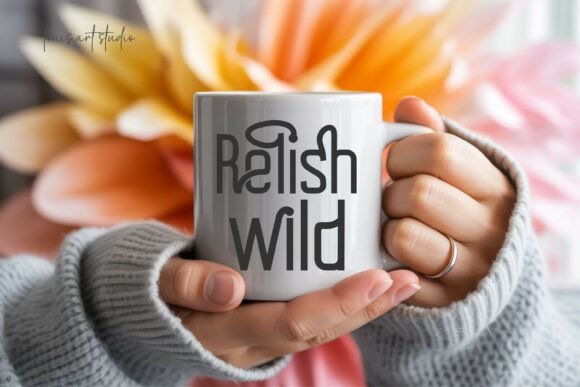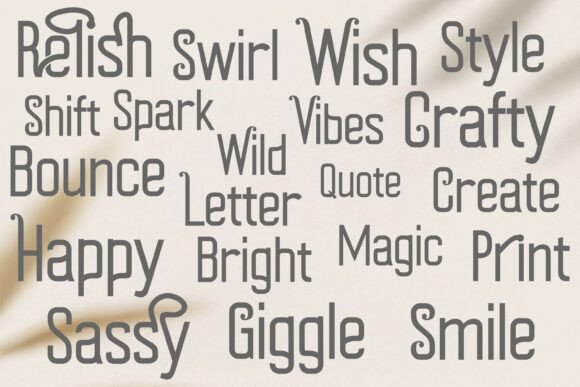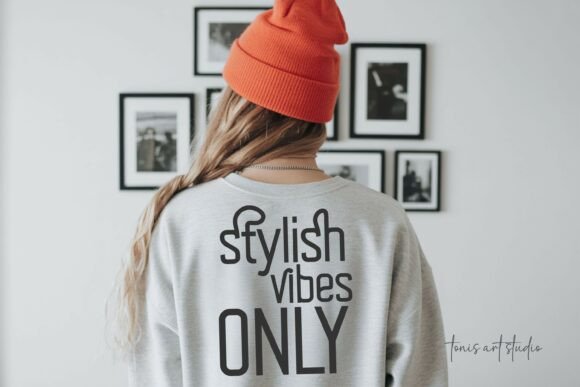
Introduction to Relish Font
Have you ever stumbled upon a font that makes your creative project come alive? For designers, finding the perfect font can be a game-changer. It’s that moment when you finally discover the missing piece that elevates your design from good to great. For us, that moment arrived when we discovered the Relish Font – a stunning, hand-drawn sans serif font that’s perfect for anything from quirky quotes to high-end brand identities.
With its amusing curves and swash substitutes, the Relish Font is a true design treasure. Whether you’re working on a high-quality design resource or a personal creative project, this font is sure to bring a touch of personality and charm to your work. And the best part? It’s available for free download, making it an accessible design resource for designers of all levels.
Key Features of Relish Font
- High-quality typography for creative projects: Relish Font is designed to provide a unique and elegant look to your designs.
- Transparent background: This feature makes it easy to use the font with any background image or color, giving you full control over your design.
- Perfect for digital designs: With a high resolution of 300 DPI, Relish Font is ideal for use in digital designs, such as website headers, social media graphics, and more.
- Unique characteristics: The font features a modern and sleek design, with subtle nuances that set it apart from other fonts in its class.
- Easy to use: Relish Font is designed to be easy to read and use, making it a great choice for any creative project.
Honest Review: Relish Font
As a designer, I’ve had the chance to work with a variety of fonts, but I wanted to share my thoughts on the Relish Font. I was initially drawn to its unique style and high quality, which I believe makes it a great addition to any design project.
The Relish Font features a transparent background, making it easy to customize and layer with other design elements. This is a huge plus for me, as I love experimenting with different design resources and techniques. Plus, the free download option makes it accessible to designers of all levels.
- Unique and stylish design
- High quality and crisp typography
- May not be suitable for very formal or traditional designs
- Limited language support
Overall, I’m really impressed with the Relish Font and think it would be a great addition to any creative project. It’s perfect for modern and edgy designs, and the free download option makes it a great resource for designers on a budget.
Tips for Getting the Most Out of Relish Font
For the best results, use Relish Font on a transparent background to ensure a clean and professional look. You can also experiment with different font sizes and styles to add visual interest to your design.
Relish Font is perfect for a variety of creative projects, including graphic design, branding, and digital marketing. Its transparent background makes it ideal for use on social media, websites, and other digital platforms.